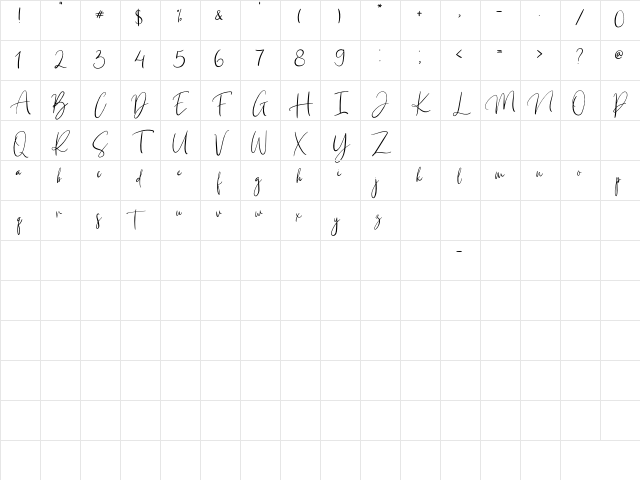
Complete Brilliant Classy Regular glyph index. Displaying only characters natively supported by Brilliant Classy Regular font.
Brilliant Classy is a composed and adaptable typeface that performs quietly and consistently across a wide range of design contexts.